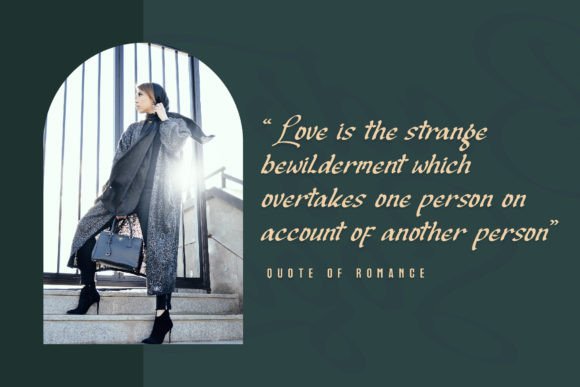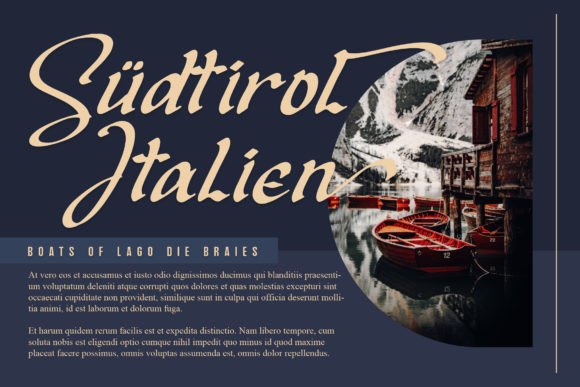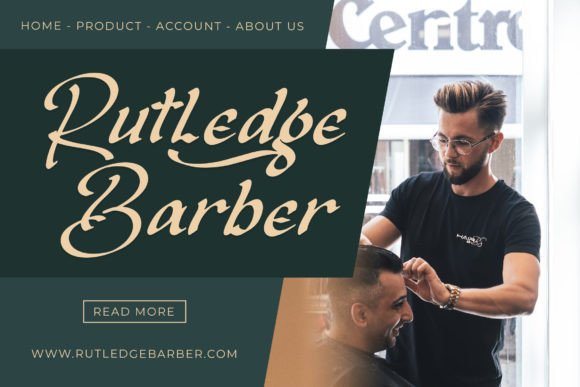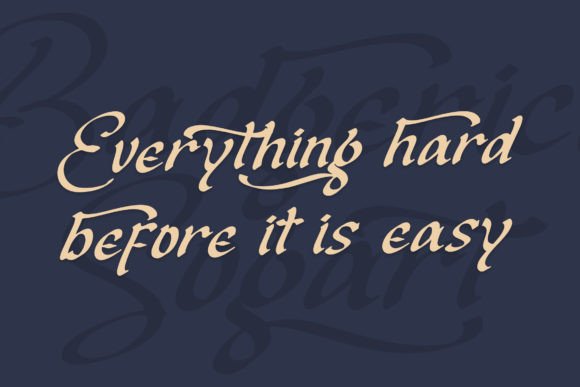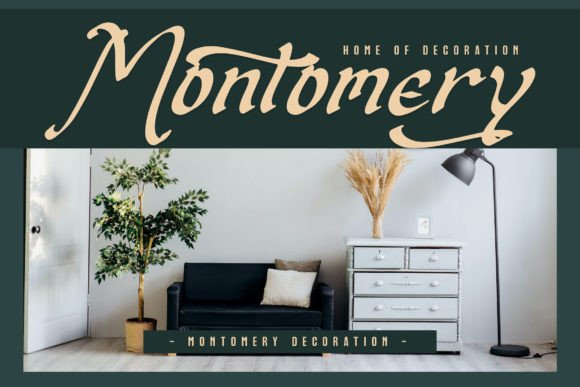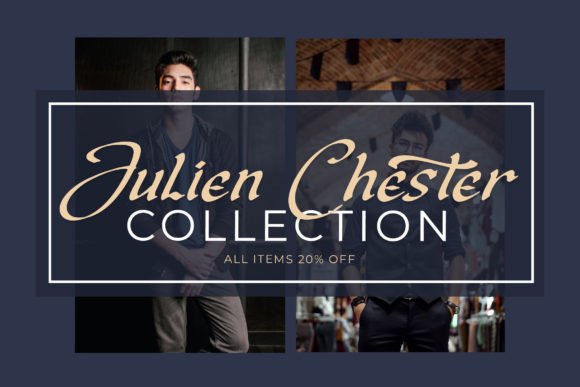
Have you ever found yourself staring at a blank page, trying to bring your latest idea to life, but struggling to find the perfect font to set the tone? It’s a familiar feeling for many creatives, but what if you could unlock a world of beautiful script fonts that would elevate your projects to the next level?
Enter the Badgerict Sogart Font – a stunning, modern calligraphy font that’s perfect for any project that requires a touch of elegance and sophistication. With its versatility and charm, it’s no wonder that this font has become a go-to choice for designers looking to add a script touch to their work. Whether you’re designing logos, branding projects, or homeware designs, the Badgerict Sogart Font is sure to bring a sense of refinement and style to your creations.
Badgerict Sogart Font Key Features
- Font Family: Badgerict Sogart
- Character Set: Latin, Cyrillic, Greek, and Extended Latin characters
- Size: Available in 5 font sizes: 12, 14, 16, 18, and 24 points
- Resolution: Optimized for screen and print at resolutions up to 1200 dpi
- Unique Characteristics: This font features a unique blend of rustic and modern elements, with a distinctive irregularity in letterforms and a wide range of ligatures and swashes.
Badgerict Sogart Font Review
Overall, I think the Badgerict Sogart Font has some great qualities that make it a solid addition to any designer’s toolkit. ✨ One of its strongest features is its unique blend of modern and vintage elements, giving it a distinct look that’s perfect for projects that need a bit of edge. ✨ The font also has a wide range of styles, from bold and playful to elegant and refined, making it versatile enough to suit a variety of design needs.
However, there are a few limitations to consider. ⚠️ For one, the font can be a bit difficult to read at smaller sizes, and some of the more intricate details can get lost in the noise. ⚠️ Additionally, the font doesn’t come with as many language support options as some other fonts on the market, which could be a problem for designers working on multilingual projects.
- Unique blend of modern and vintage elements
- Wide range of styles to suit different design needs
- Perfect for projects that need a bit of edge
- Difficult to read at smaller sizes
- Limited language support options
Overall, I’d say the Badgerict Sogart Font is a solid choice for designers who want a unique and versatile font that can add some personality to their projects. While it may have some limitations, its strengths far outweigh its weaknesses, making it a great addition to any designer’s toolkit.
Badgerict Sogart Font Practical Application Guide
Tips: Use the Badgerict Sogart font to create unique and eye-catching titles, headings, and quotes in your Canva designs.
- Choose the Badgerict Sogart font from the font menu and adjust the font size, color, and style as needed.
Tips: Use the Badgerict Sogart font to create custom typography for your logos, branding materials, and other design projects in Photoshop and Illustrator.
To use the Badgerict Sogart font in PowerPoint or Word, follow these steps:
- Choose the Badgerict Sogart font from the font menu and adjust the font size, color, and style as needed.
Tips: Use the Badgerict Sogart font to add a touch of elegance and sophistication to your presentations and documents in PowerPoint and Word.
The Badgerict Sogart font is ideal for:
- Creative projects, such as graphic design, illustration, and typography.
- Branding materials, such as logos, business cards, and letterheads.
- Presentations,
Alternatives to Badgerict Sogart Font
Bebas Neue is a sans-serif font that is ideal for headings and titles. It has a strong and modern look, making it perfect for fashion, tech, and sports branding. Bebas Neue is more condensed and has a more geometric feel compared to Badgerict Sogart Font, which is more rounded and has a rustic feel.
Playfair Display is a luxurious and elegant serif font that is perfect for high-end branding, luxury goods, and fine arts. It has a more traditional and sophisticated look compared to Badgerict Sogart Font, which is more modern and edgy. Playfair Display is ideal for creating a sense of sophistication and refinement.
Q: Is Badgerict Sogart a free or paid font?
Q: What is the recommended font size range for Badgerict Sogart?
The recommended font size range for Badgerict Sogart is between 10px to 24px, depending on the design context and intended use. It’s essential to test the font at various sizes to ensure optimal readability and visual appeal.